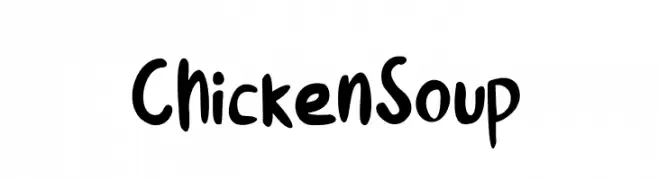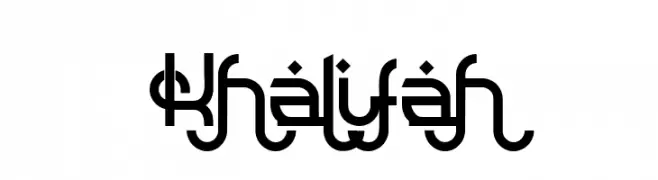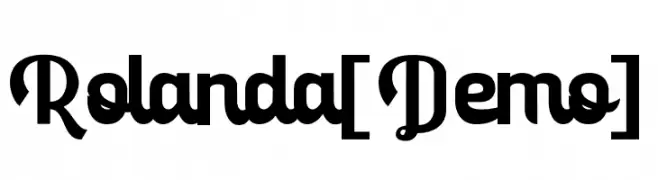
A playful, bold handwritten font with rounded, irregular strokes.
A futuristic and geometric font with bold, interconnected lines and intricate details.
A bold, playful font with a 3D shadow effect, perfect for impactful designs.
A decorative font set for Father's Day with playful and celebratory designs.
A bold, decorative font with modern and vintage elements, featuring intricate curves and playful swashes.